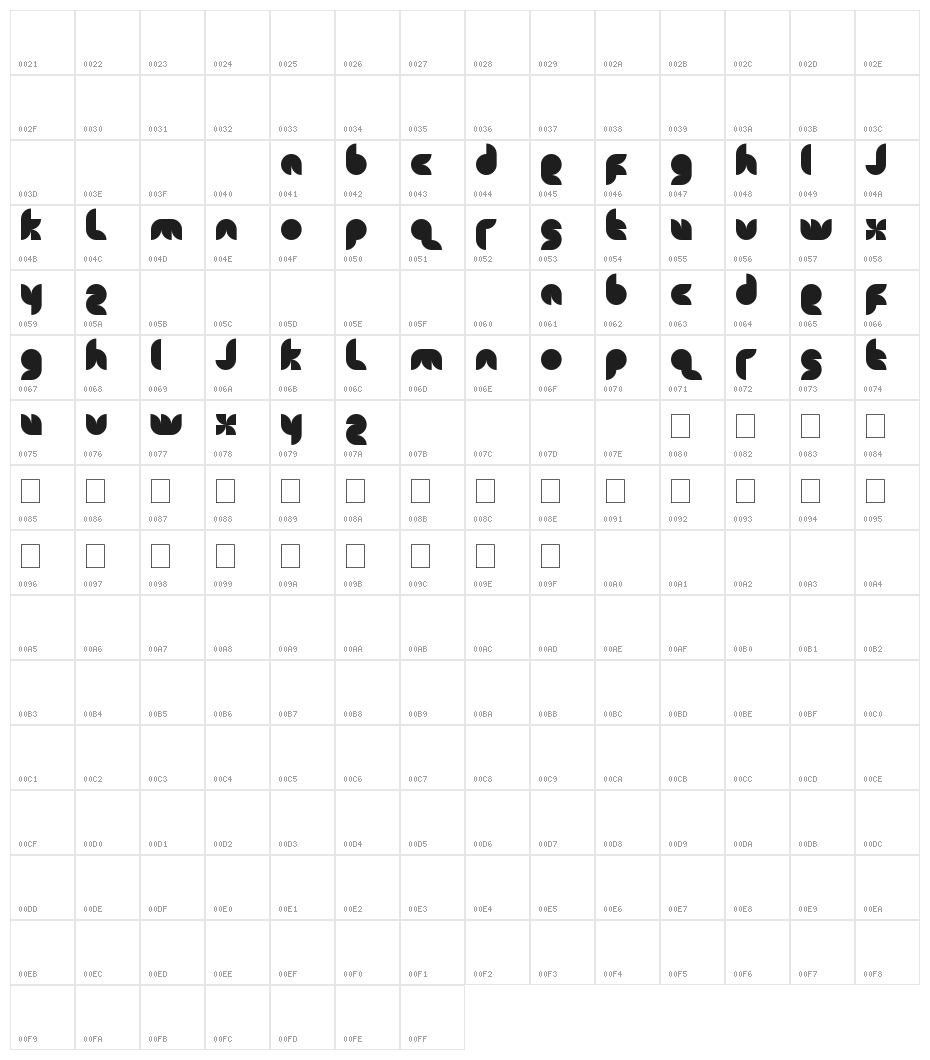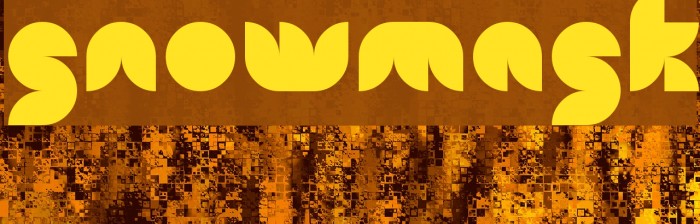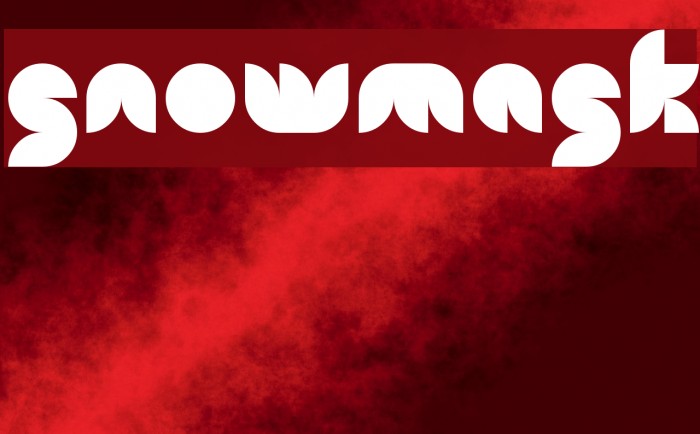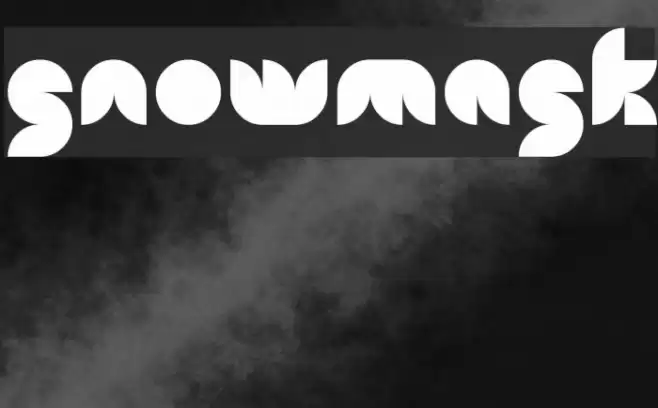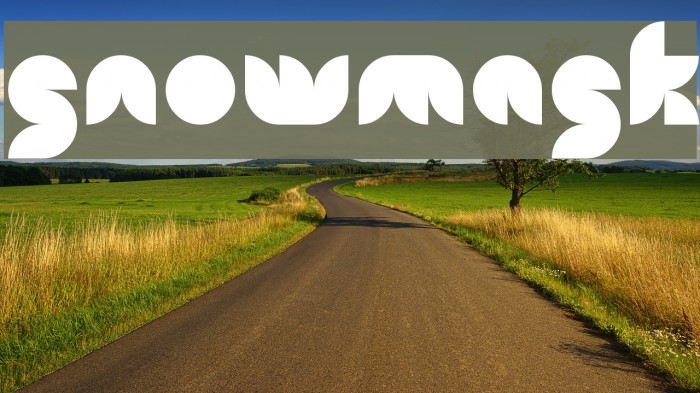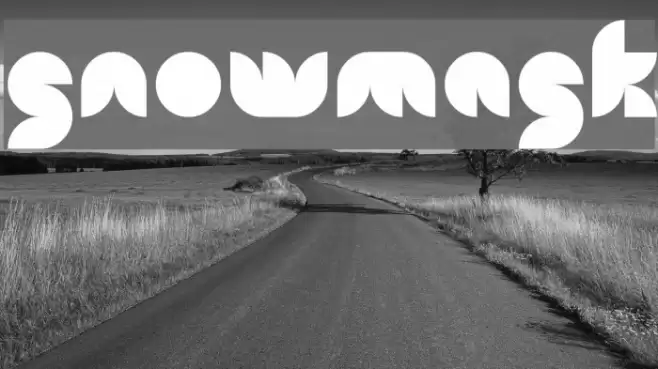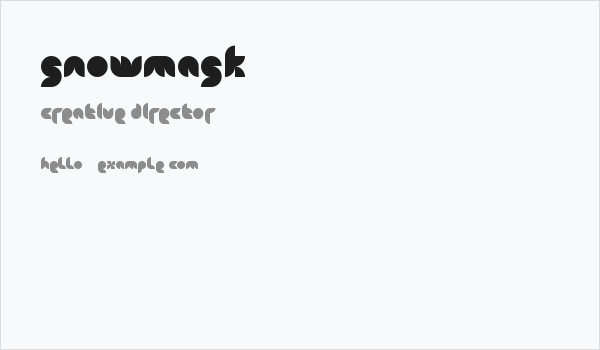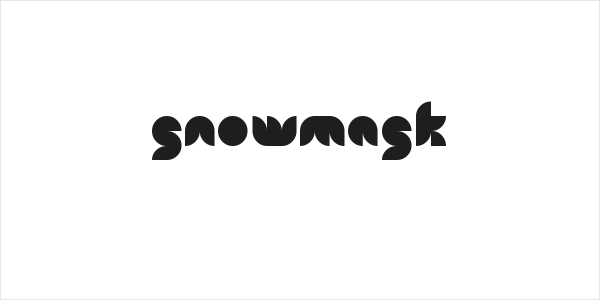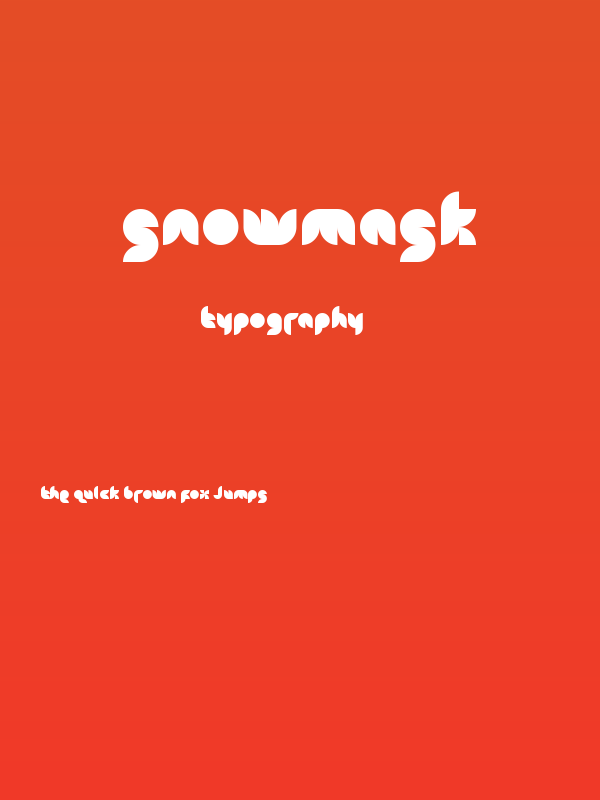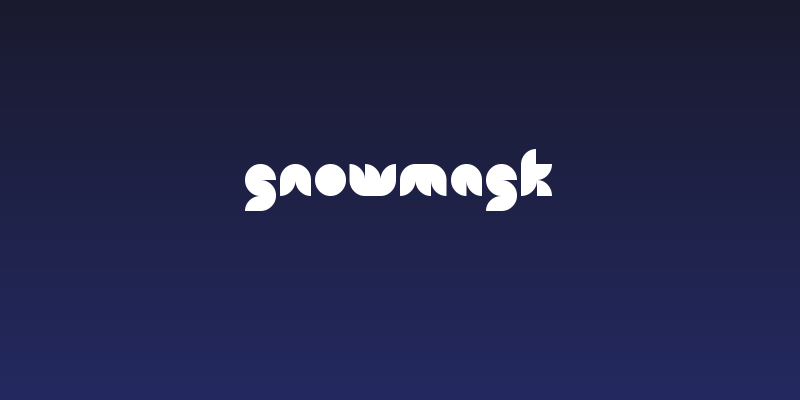
snowmask Font
snowmask Description
This font features a bold, geometric style with a distinctively modern and futuristic appearance. Each character is crafted with thick, uniform strokes that create a strong visual impact. The design incorporates circular and angular elements, giving it a unique and artistic flair. The letters are tightly spaced, enhancing the compact and cohesive look of the text. This font is highly stylized, making it ideal for creative and eye-catching designs. Its boldness and distinctiveness make it stand out, perfect for projects that require a strong visual presence.
| Proposed Projects | Ideal for branding, posters, album covers, and any project needing a striking visual impact. |